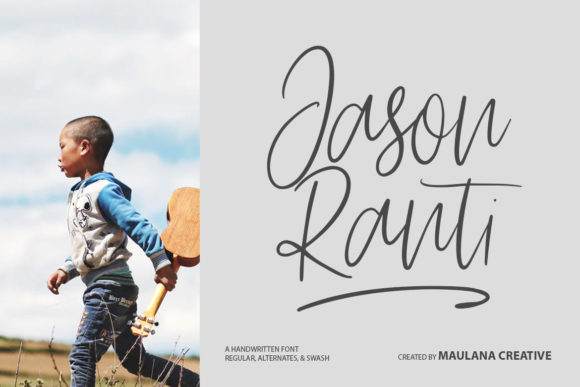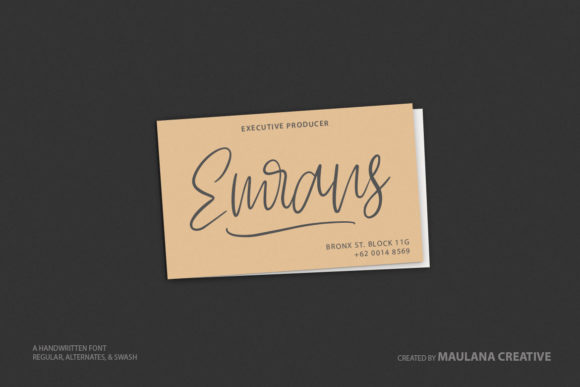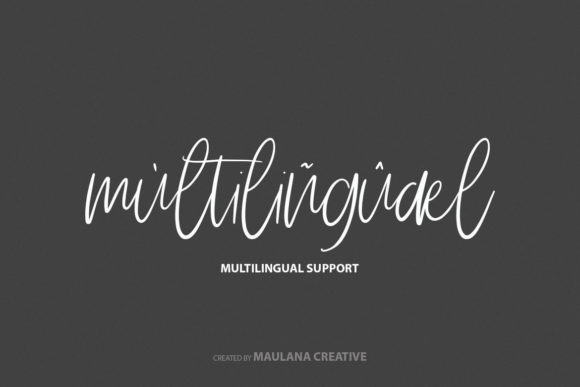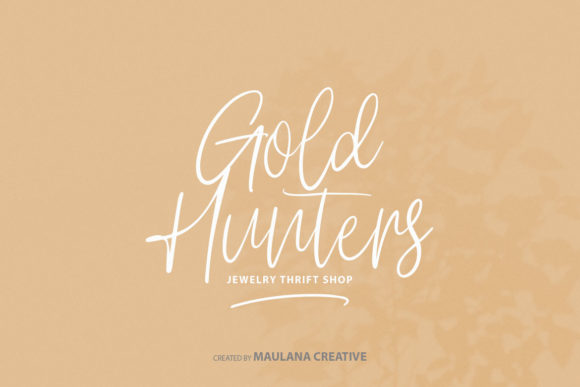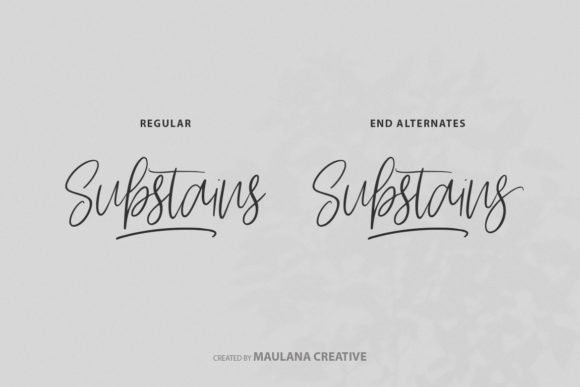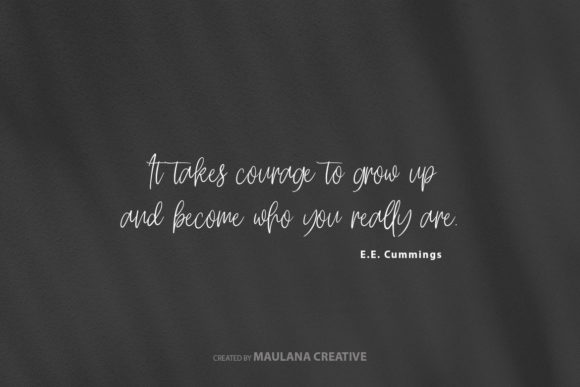
Introduction to Osirish Font
Osirish is a script that can give your designs an authentic handcrafted feel.
Fall in love with its flowing curves .
Key Features of Osirish Font
Why Choose Osirish Font?
Osirish Font offers exceptional quality and versatility, making it a valuable addition to your design toolkit. Whether you’re creating for personal projects or commercial use, Osirish Font delivers professional results.